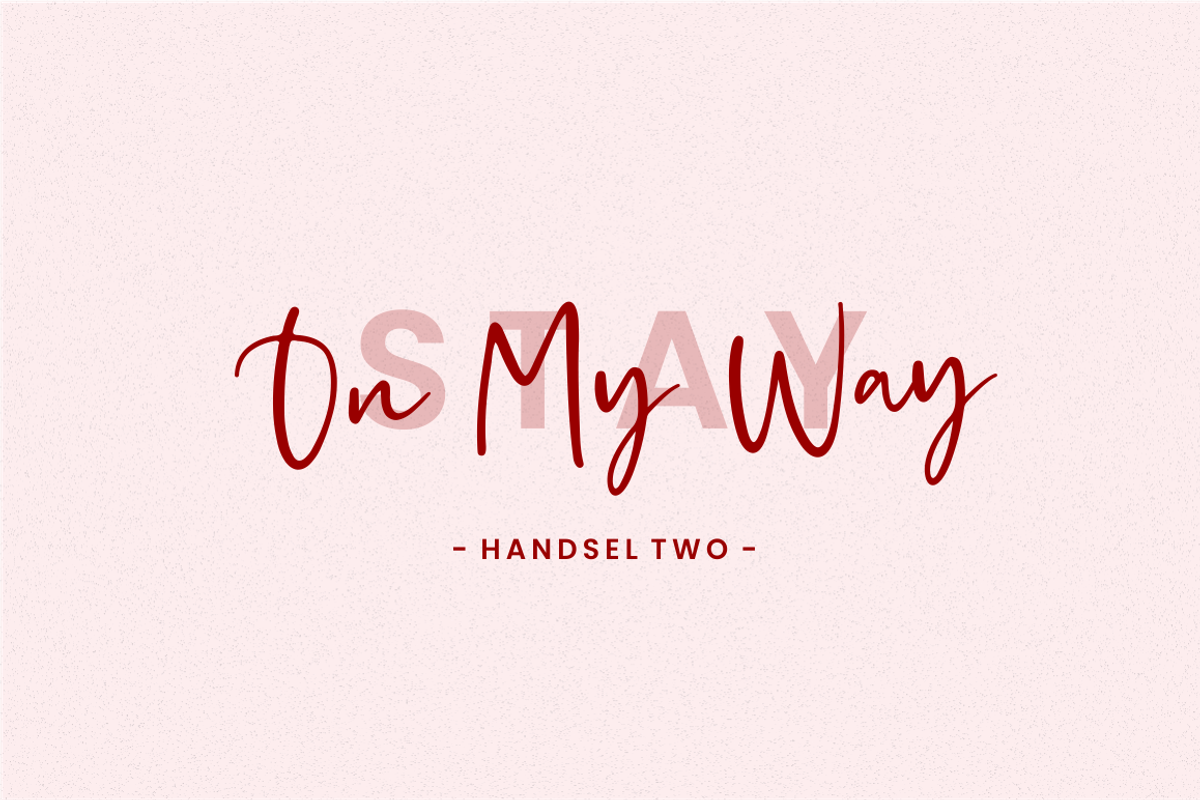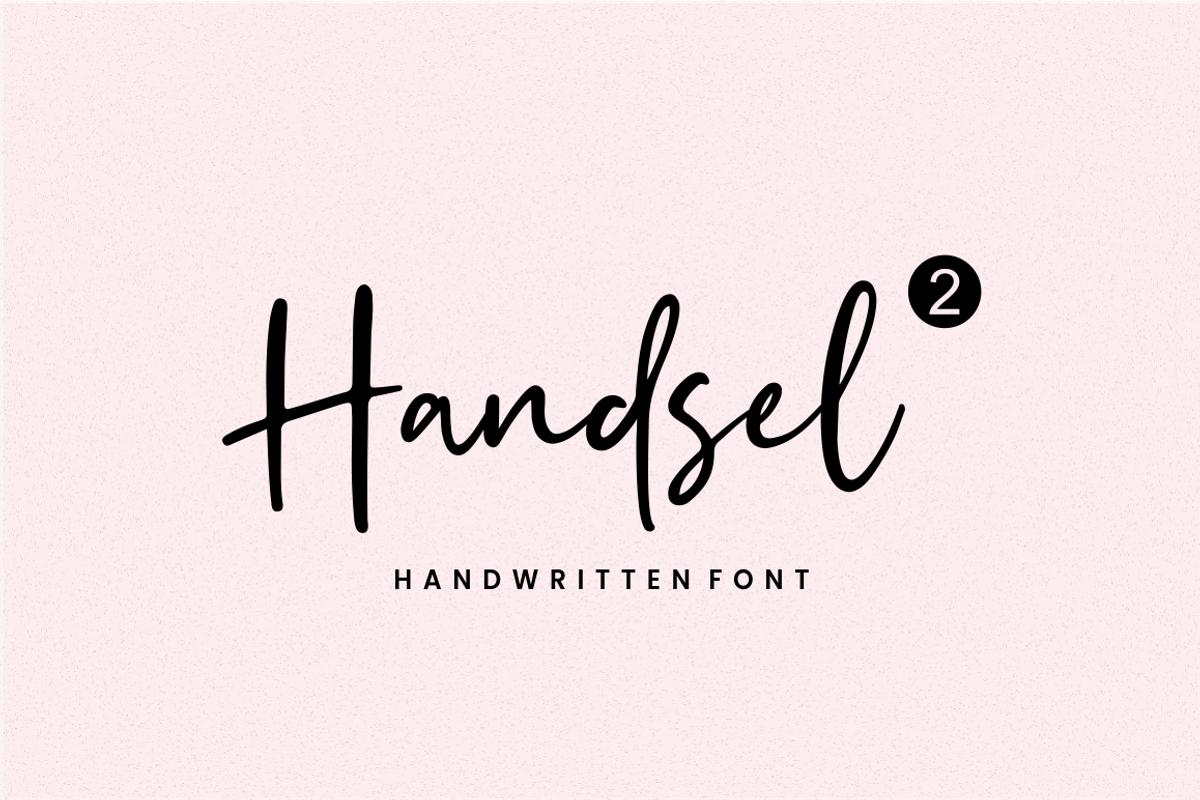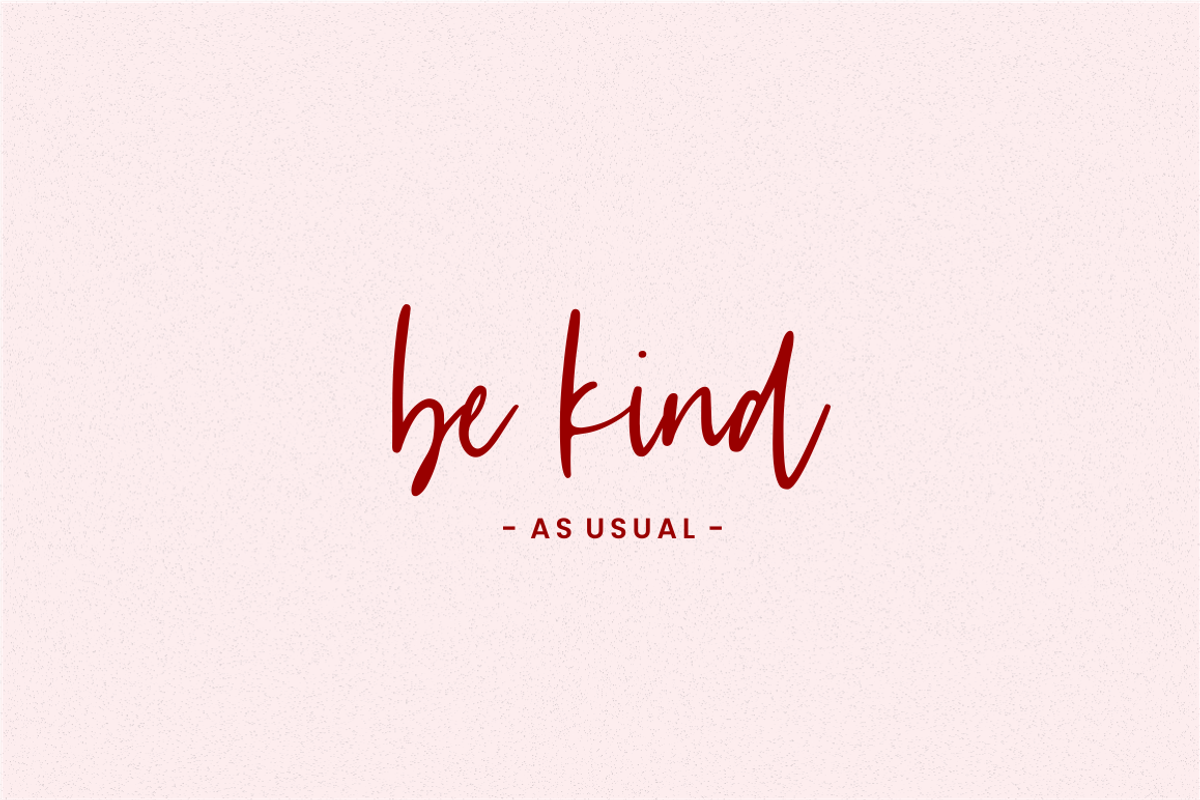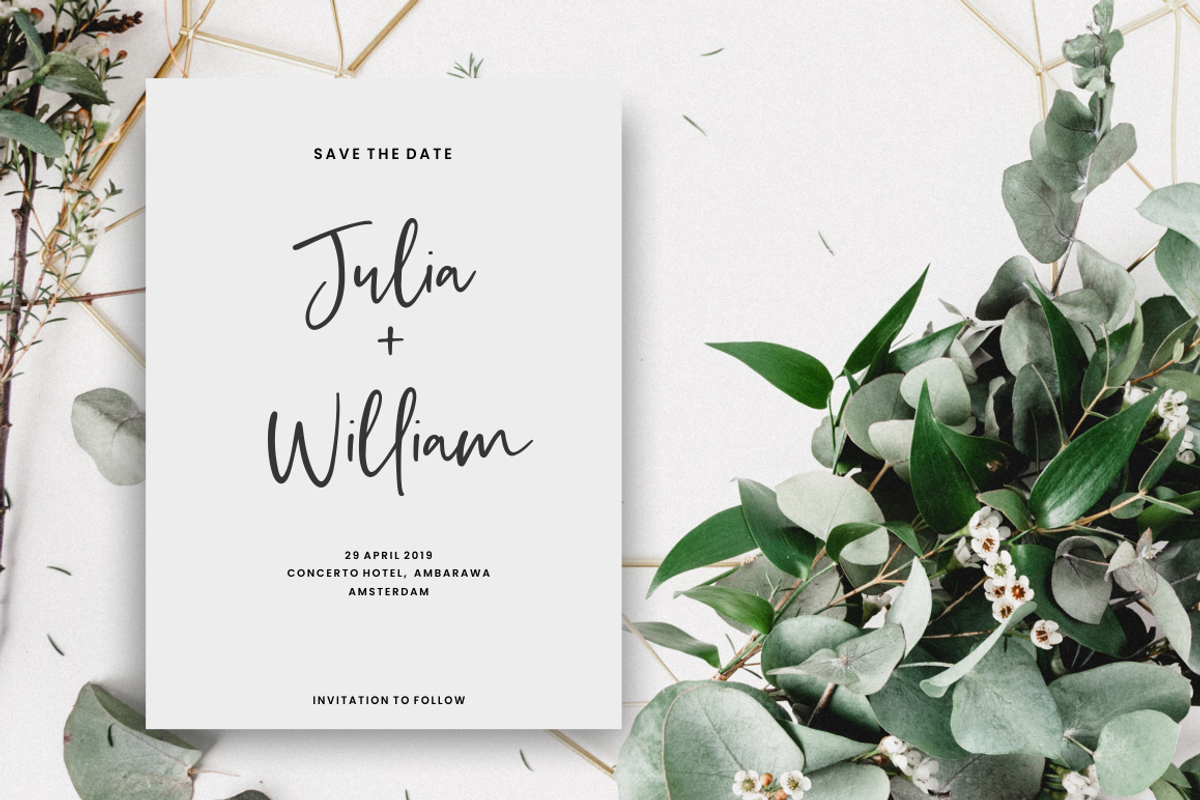
Handsel - Handwritten Font
Handsel – Handwritten Font is a natural & modern handwritten font. It’s Perfect for logos, invitations, stationery, wedding designs, social media posts, advertisements, product packaging, product designs, label, photography, watermark, special events, or anything.
- Handsel Regular
- Handsel 2 Regular
Handsel - Handwritten Font by Sronstudio fits naturally into Branding, posters, packaging, typography.